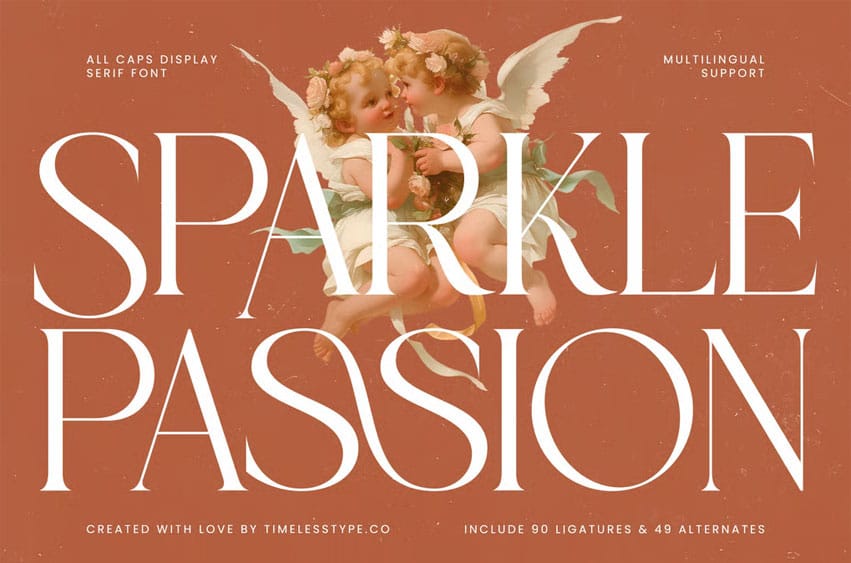
Sparkle Passion Font is an all-caps serif display font that captures timeless beauty and modern refinement. With 90 ligatures and 49 alternates, this typeface delivers an exquisite balance of elegance, romance, and sophistication — ideal for luxury branding, magazine titles, wedding designs, and editorial layouts.
Its tall letterforms and delicate contrast bring a sense of high and poetic allure. Created to make a bold yet graceful impression, Sparkle Passion is perfect for designers who want to infuse their work with classic charm and modern artistry.